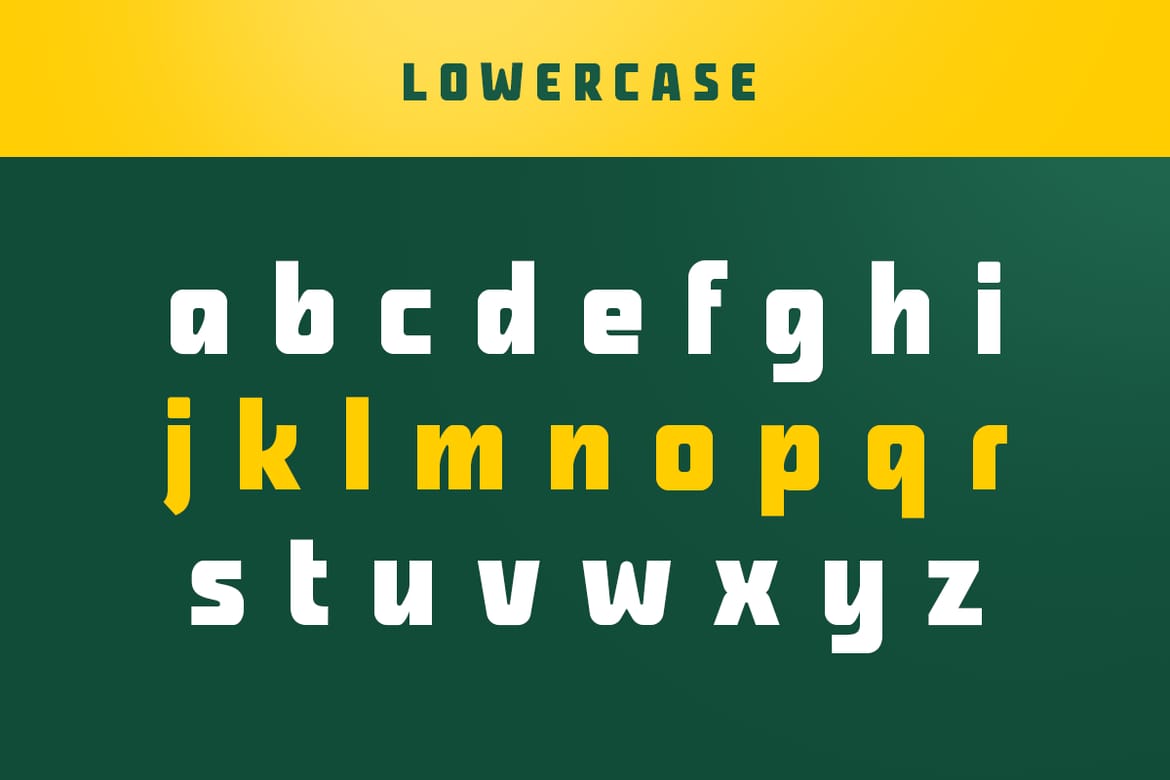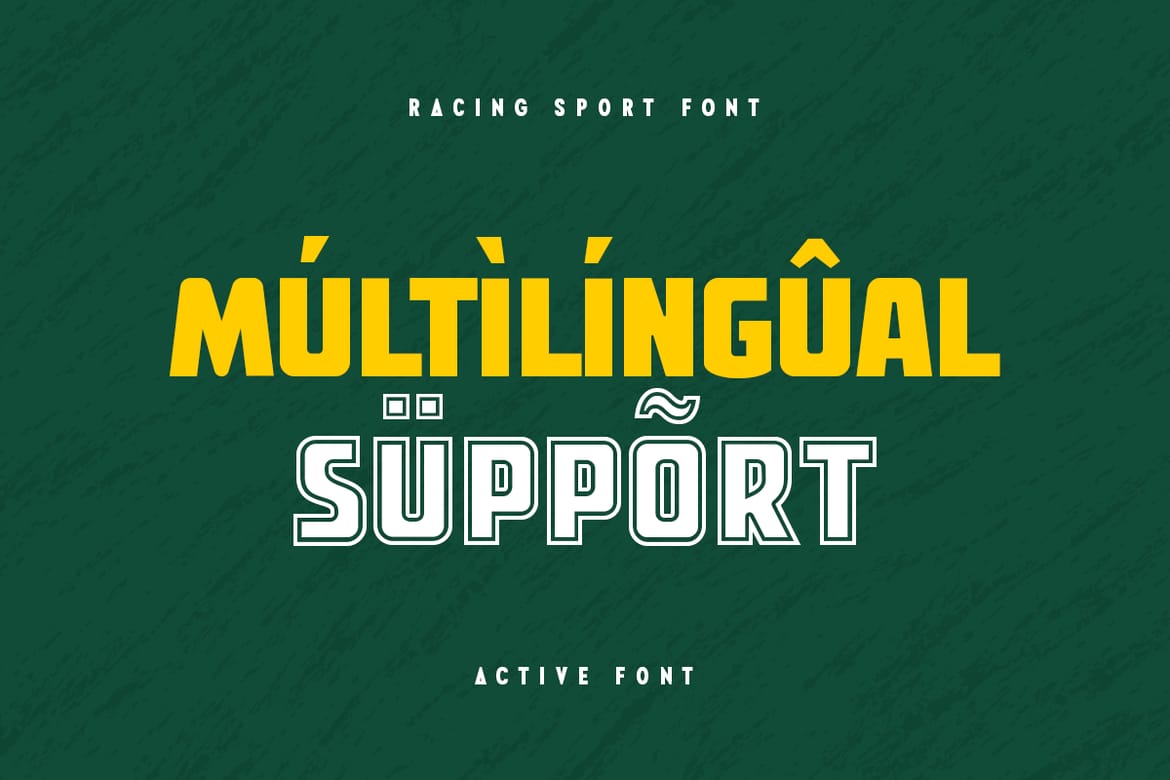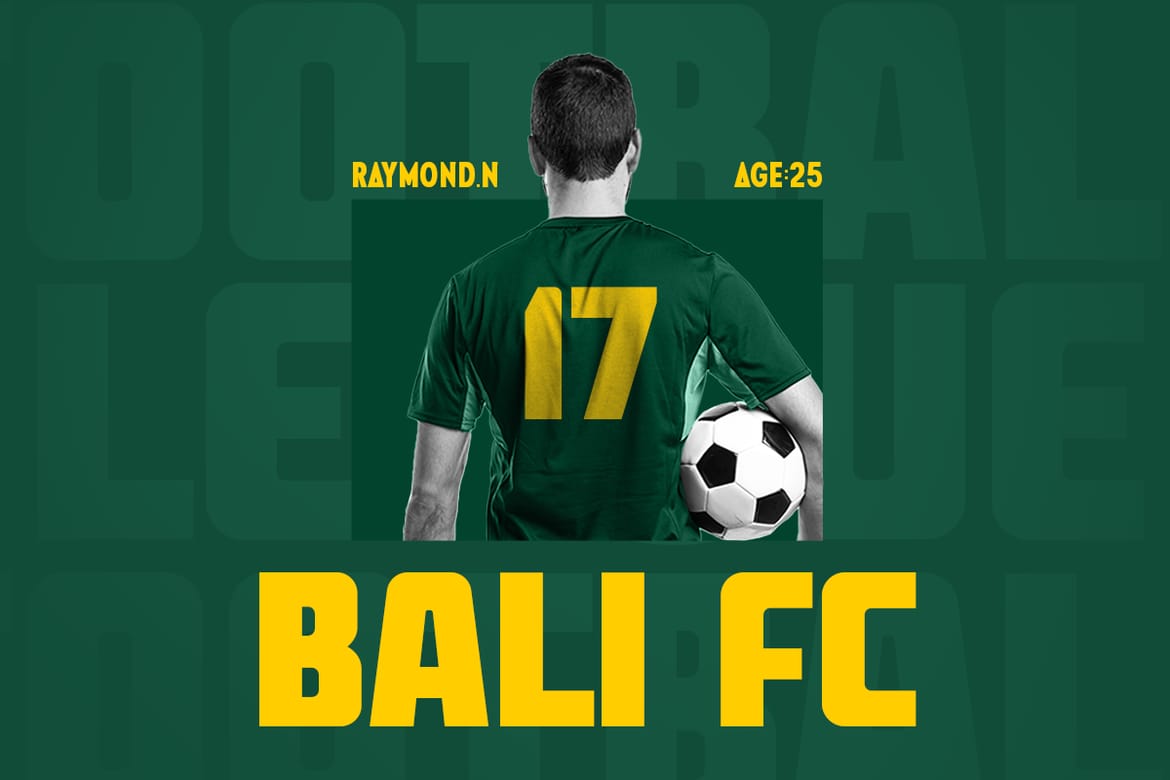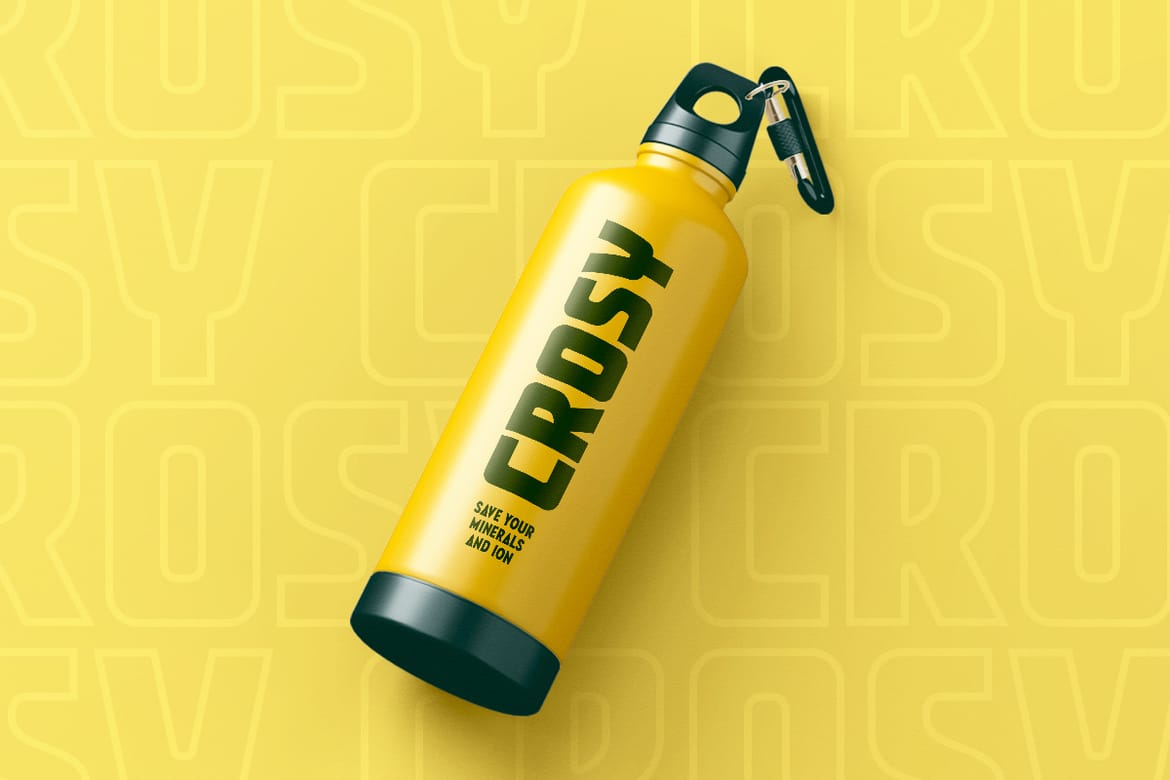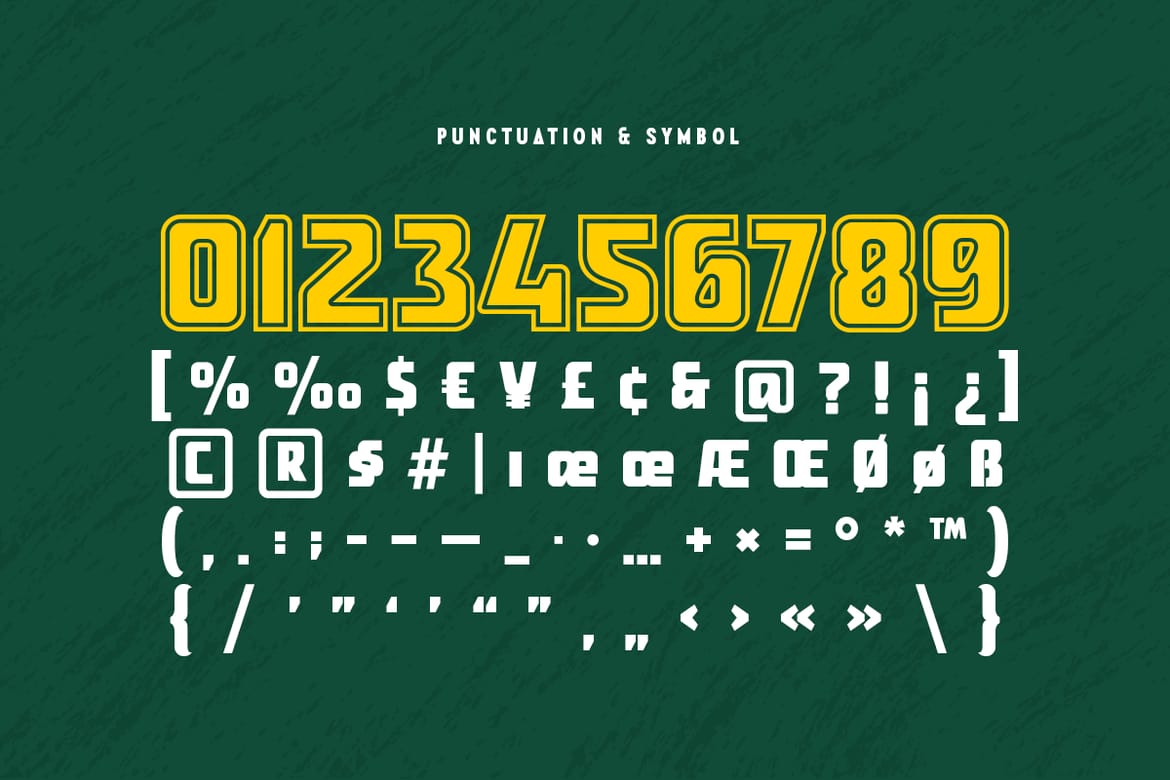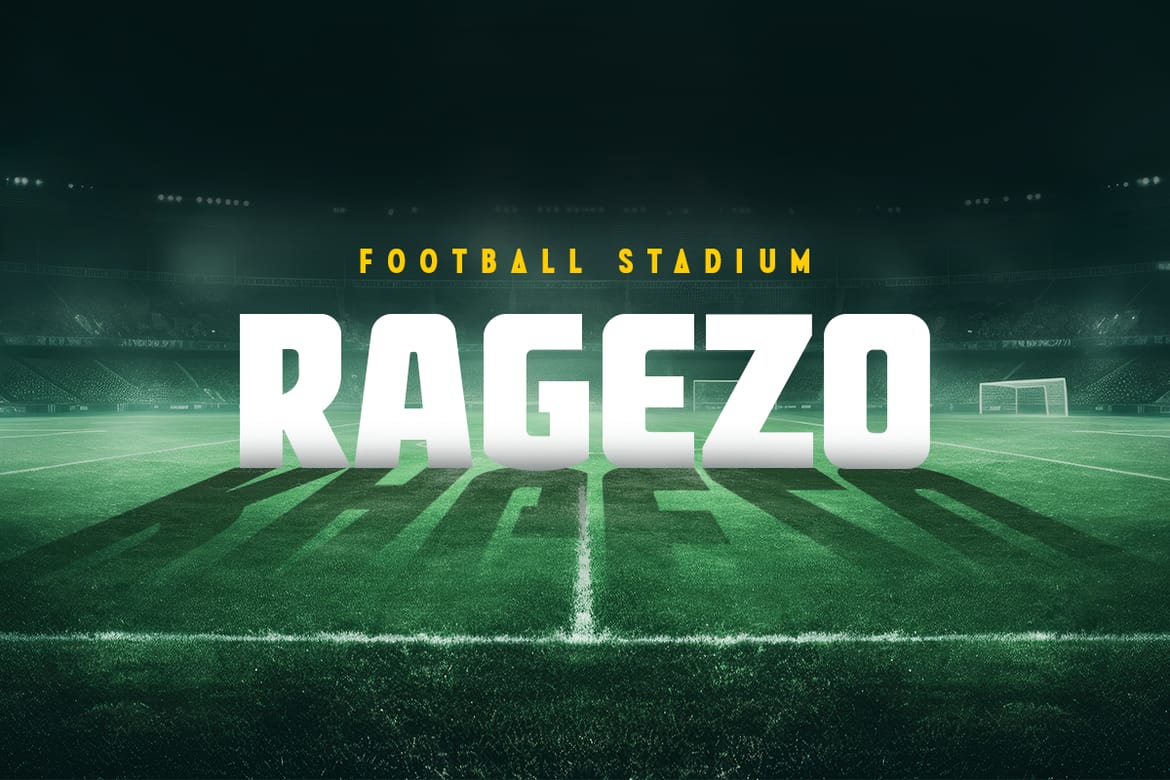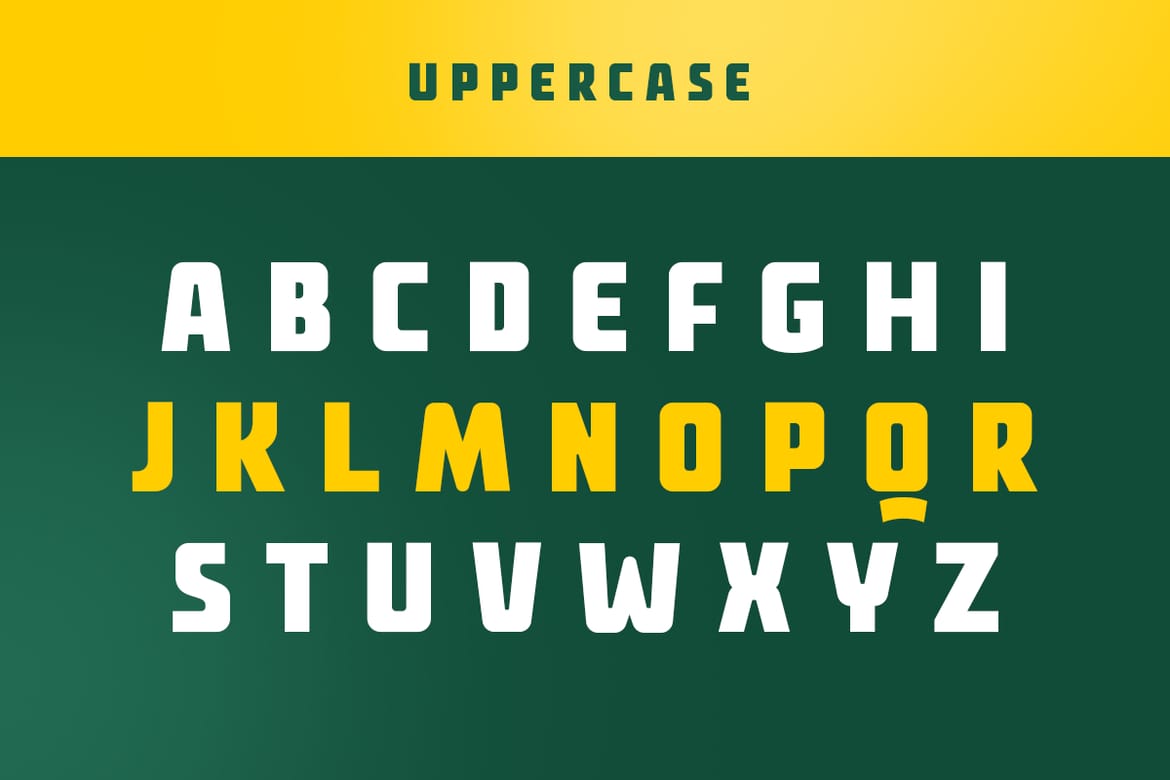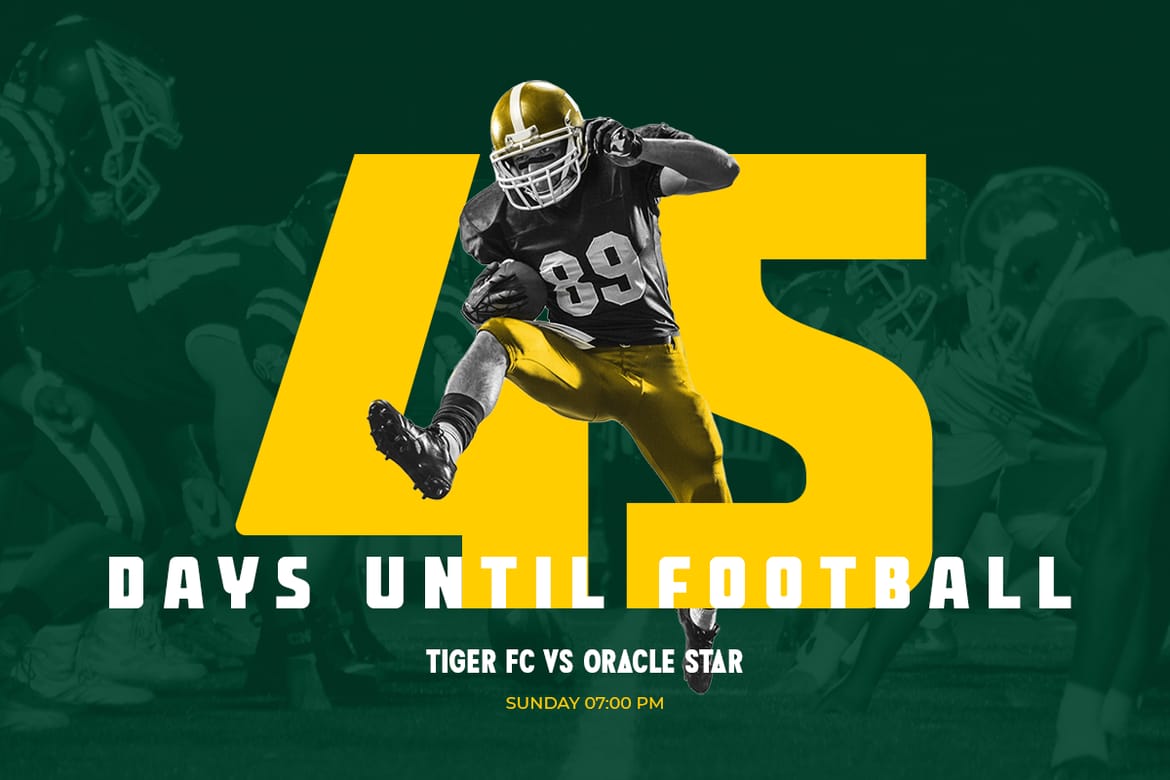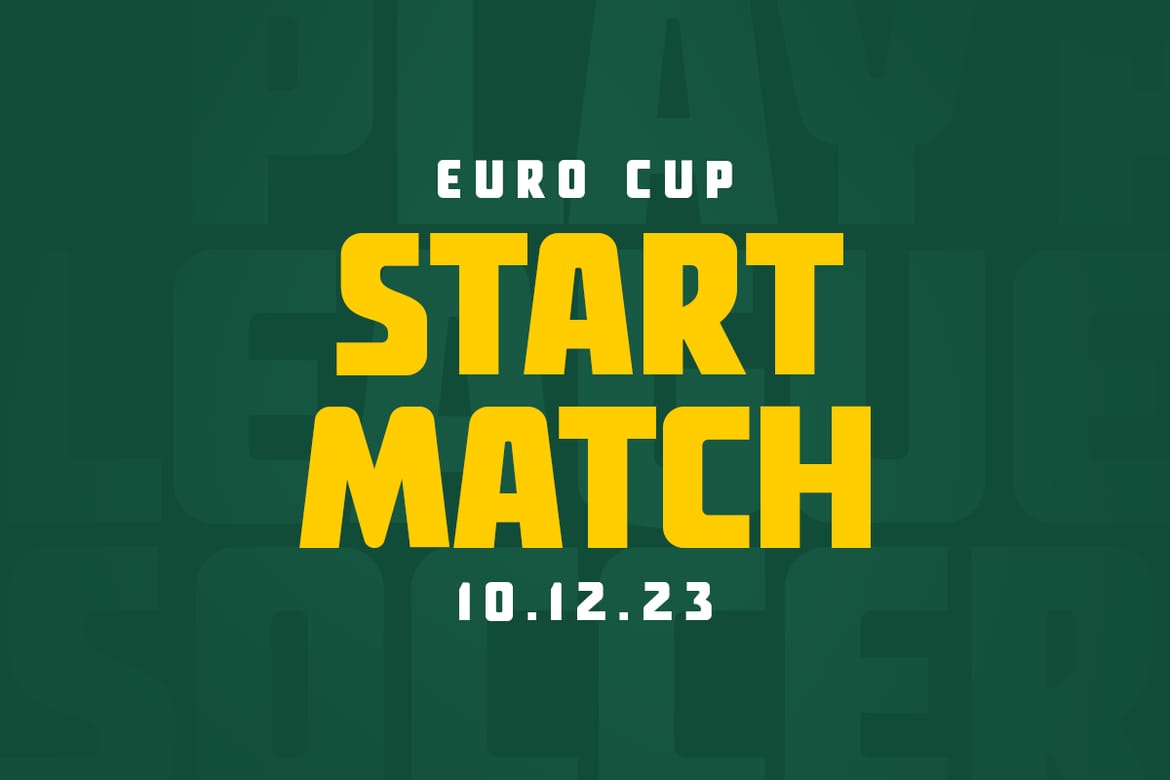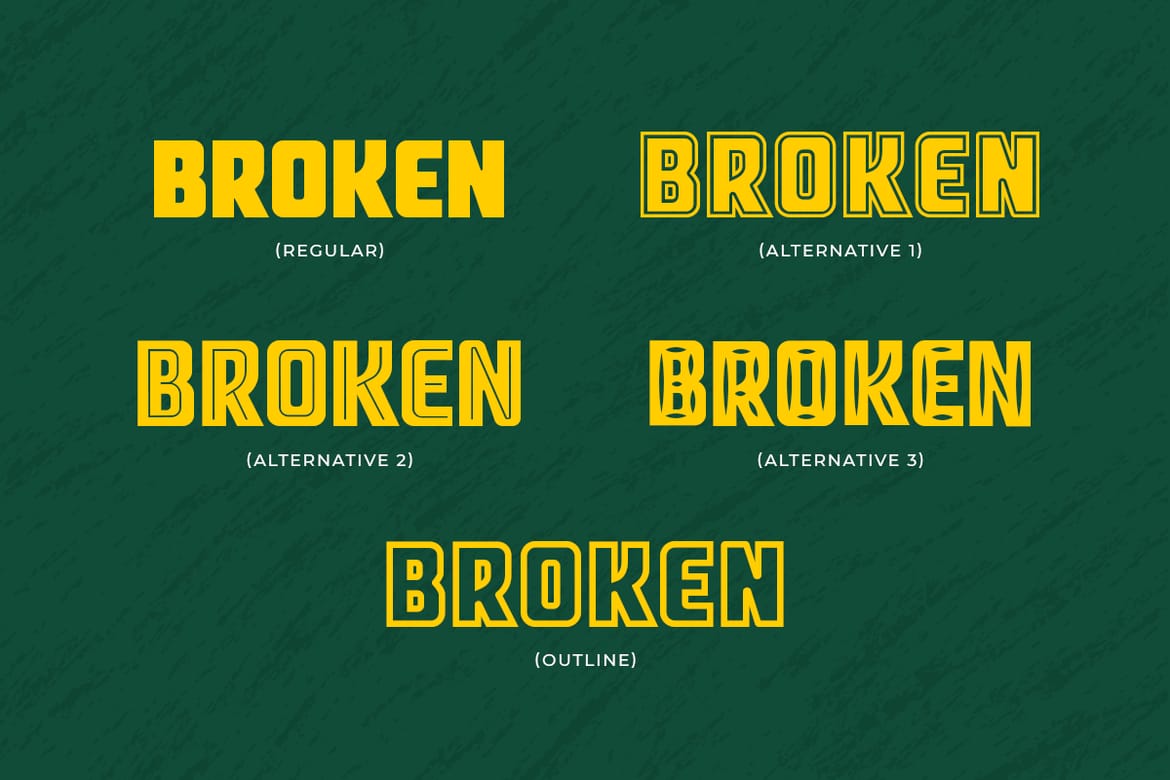
Active Racing Sport font are prepared special for logo, action, bold, racing, and sport design needs, that created special for Logo, Title and more stand out typography for sport and action. It's so perfect to add your style and headline overview for sport, racing, technology, actions, and fighting theme. And specially for this font, we crafted 5 alternates style and ready for bold action style and modern feels so enjoy to create any project that will show your main idea out.
Ready 5 Alternative Styles
Ready with All Uppercase characters
- Bold racing action display font
- 5 alternate styles included